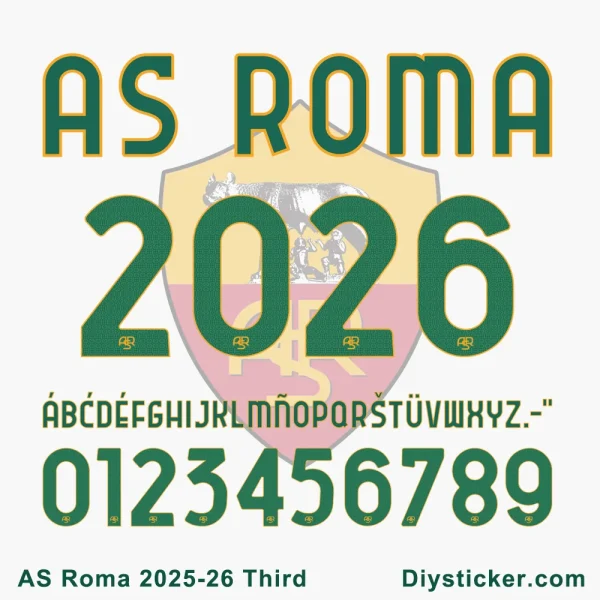
AS Roma 2025-26 Third Font Downloads
Design with the distinctive style of AS Roma using the official 2025-26 Third Kit Font. This exclusive typeface replicates the unique lettering featured on Roma’s special third jersey, perfect for creating authentic designs for I Giallorossi.